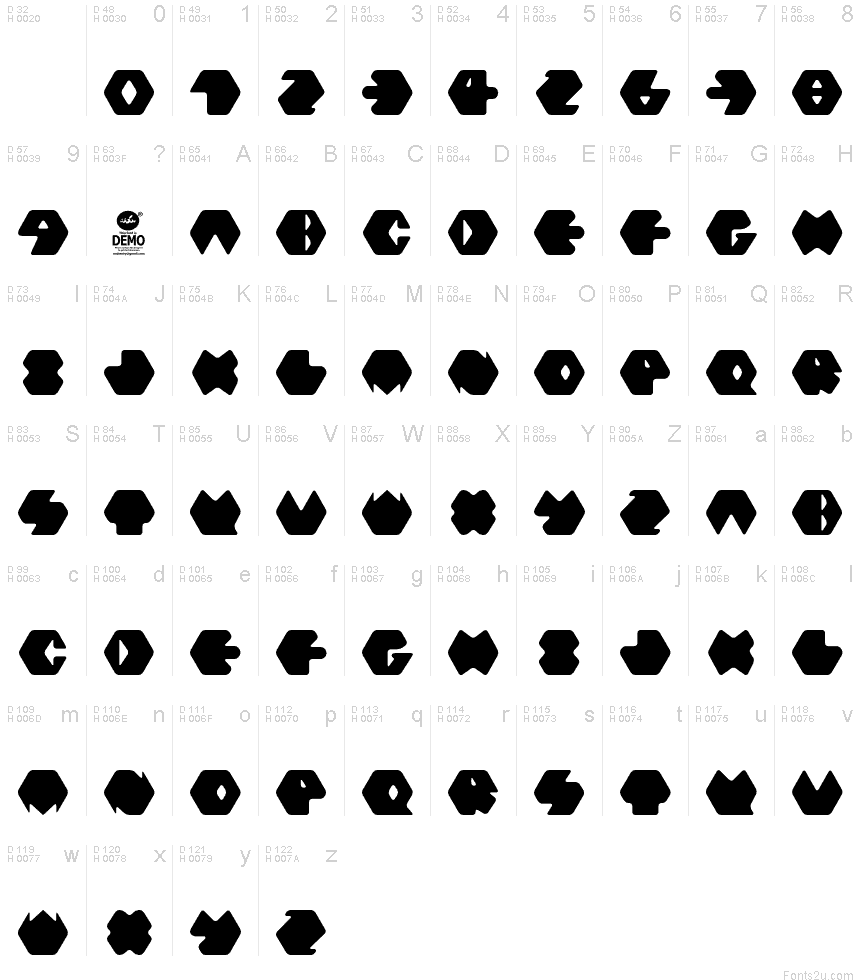
Hexafont Rounded by Mostafa El Abasiry is a free futuristic display font with massive, softly rounded forms. Its letters favor broad hexagonal silhouettes, clipped corners, and deep geometric notches over conventional curves, and many characters stretch wide, producing a steady row of interlocking, machine-like profiles. Small openings cut sharply into the dense shapes.
Futuristic machinery and bold arcade worlds are its clearest territory, making it useful for game graphics, science-fiction posters, and retro electronic music artwork. For gaming hardware or streetwear branding, the repeating six-sided forms can turn a wordmark into an emblem that echoes badges, control panels, and molded product shells.